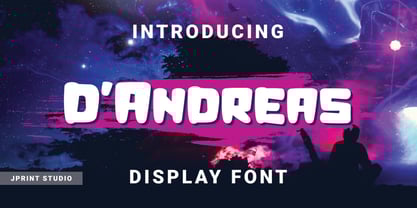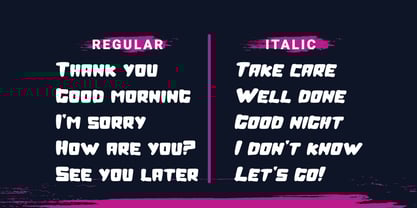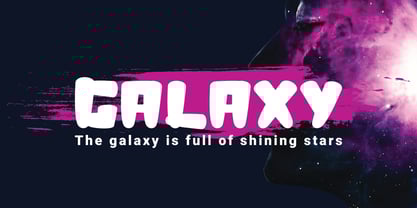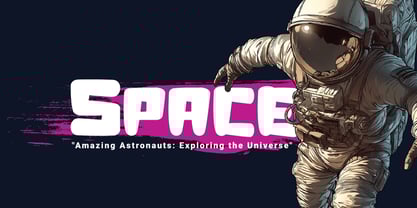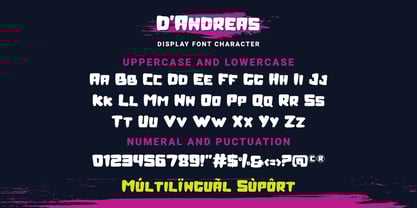
D Andreas
The D Andreas Font Family was designed by Gais Zaelani and published by JprintStudio. D Andreas contains 2 styles and family package options.
Unveiling D’Andreas, a dynamic font designed with the perfect blend of modern versatility, bold robustness, and a hint of nostalgia. This distinct typeface exudes a radiance of joy, making it the quintessential choice for projects ranging from product packaging, posters, social media campaigns, and everything else your creativity drums up. D’Andreas offers a unique, vintage vibe that makes even the most mundane tasks an immersive trip through time – fun and intriguing. What sets this typeface apart is its welcoming, easy-to-use style. D’Andreas is the perfect tool to inject an element of playful personality into your creative pursuits and masterpieces.